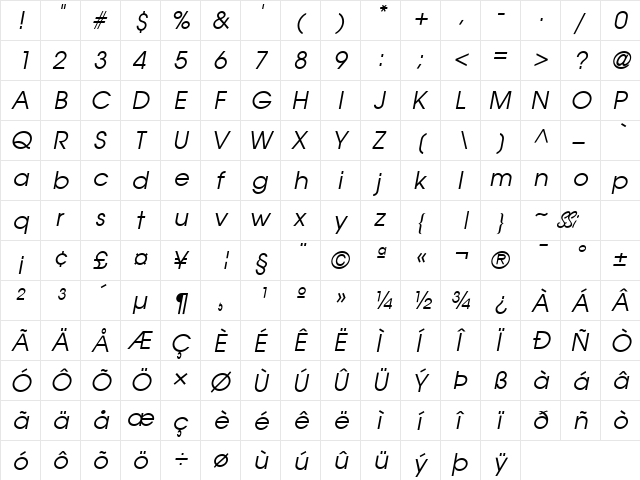
Trendex SSi Italic
Design Context for Trendex SSi Typeface
Trendex SSi is a composed and adaptable typeface that performs quietly and consistently across a wide range of design contexts. The dynamic lean of this cut emphasises speed and emphasis in any layout.
Pro Tip: Use Trendex SSi for emphasis, pull quotes, and subheadings where its slanted energy can add rhythm to the layout.